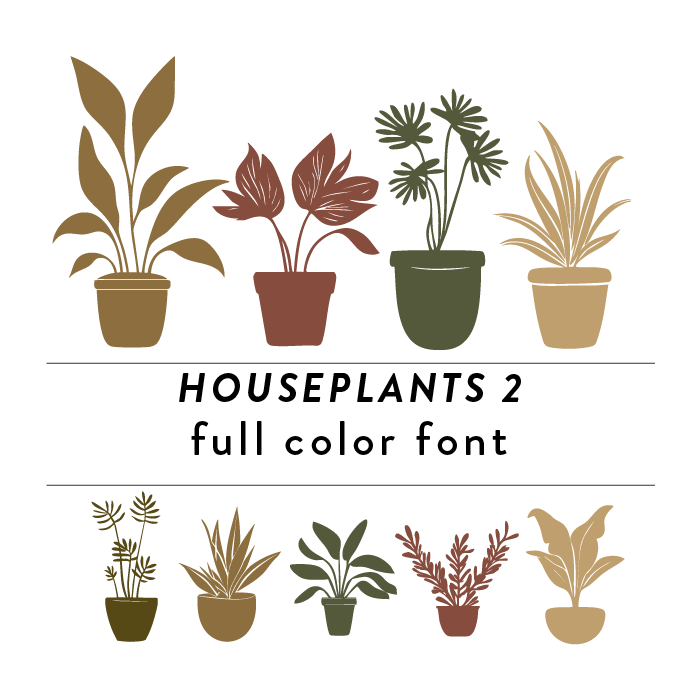
Houseplants 2 Full Color Font is a whimsical and nature-inspired font design featuring intricate tree branches, leaves, and garden elements. Its vibrant colors and decorative style make it perfect for adding a touch of botanical charm to any project, from home decor or cards. Perfect for nature lovers and those seeking a unique and eye-catching font for their designs. This font is a OTF craft font that will appear in color only when used with the silhouette software.